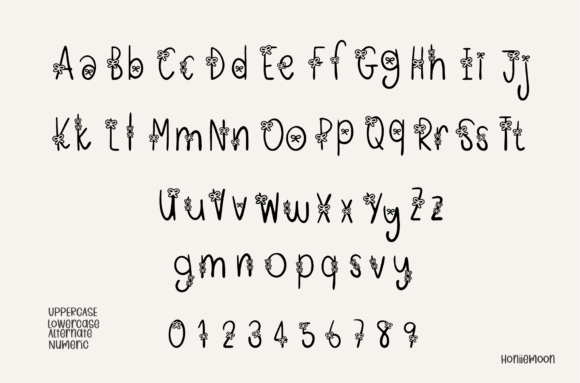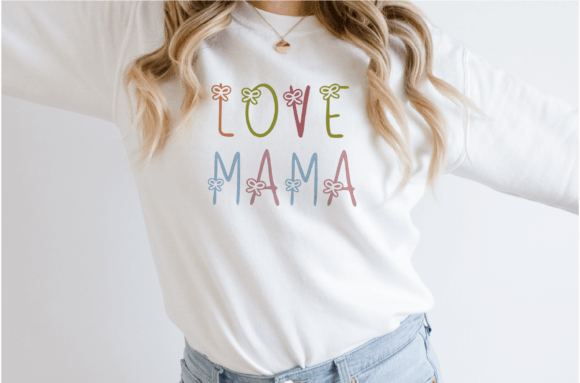
The Power of Cute Bow Font: Bringing Joy to Your Designs
Remember that moment when you were brainstorming ideas for your next creative project and suddenly, a burst of inspiration hit you? You saw a vision of colorful balloons, fluffy clouds, and a dash of whimsy. That’s exactly what the Cute Bow Font can bring to your designs – a sprinkle of magic and a pinch of playfulness.
This delightful font is not just a pretty face; it’s a powerful tool for designers looking to add a touch of personality to their work. The Cute Bow Font is designed to be fun, cute, and jolly, making it the perfect addition to any project that needs a little extra oomph. Whether you’re creating a birthday invitation, a children’s book, or a social media post, this font is sure to bring a smile to your face and make your designs come alive.
- Unique Characteristics: The Cute Bow Font features adorable bow-shaped characters, cute icons, and playful symbols, making it perfect for designs targeting a young audience.
- Font Style: The font comes in two styles: regular and bold, providing flexibility for designers to choose the right style to match their design theme.
Cute Bow Font Review
I have to say, the first thing that caught my eye about Cute Bow Font is its ✨ whimsical charm. The playful, rounded design of the letters is perfect for creating a sense of wonder and magic in your designs. The font is also highly customizable, making it easy to adjust the color and size to fit your project’s needs.
- ✨ Whimsical, childlike charm that’s perfect for creating a sense of wonder
- ✨ Highly customizable, making it easy to adjust the color and size
- ✨ Compatible with a wide range of design software
- ⚠️ May not be suitable for more serious or formal designs
- ⚠️ Can be difficult to read at smaller font sizes
- ⚠️ May not be as versatile as some other fonts
Overall, I think Cute Bow Font is a great choice for designers looking to add a touch of whimsy to their projects. While it may not be suitable for every design, it’s a great option for creating a sense of wonder and magic.
The Cute Bow Font is perfect for:
- Baby shower invitations and decorations
- Wedding stationery and decorations
- Branding and packaging for kids’ products